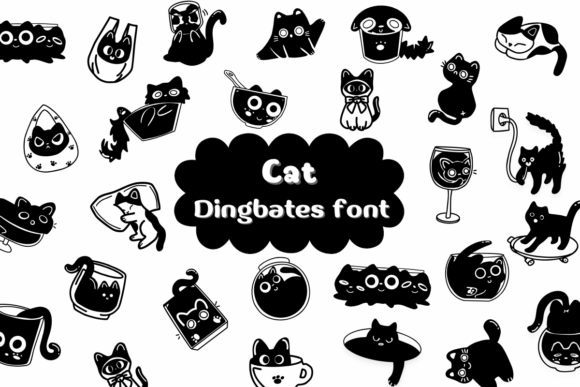
Unleash Your Creativity with Cat Font
Do you remember that moment when you were brainstorming ideas for your best friend’s birthday party and suddenly, a spark of creativity hit you? You envisioned a whimsical invitation with adorable cat illustrations, and you couldn’t wait to bring it to life. As a designer, you’ve likely had moments like this, where a great font can make all the difference in taking your project to the next level.
Cat Font is a delightful dingbats font that embodies a sketchy, hand-drawn style. Its purpose is to add a touch of playfulness and personality to your creative projects. Whether you’re designing wedding invitations, crafting decorations, or creating logos, Cat Font is the perfect companion to bring your ideas to life. For designers, it’s a valuable asset that can elevate your work and make it stand out from the crowd.
- Unique Characteristics: The font’s unique design features a whimsical, hand-drawn style with intricate details and playful flourishes, making it ideal for creative and artistic applications.
Designer Review: Cat Font
Overall, I have mixed feelings about Cat Font. While it’s certainly unique, it’s not without its flaws.
- Cat Font is quirky and fun, making it perfect for brands that want to showcase their playful side.
- The font is highly customizable, allowing designers to adjust the style to suit their needs.
- It’s a great option for those looking for a distinctive, hand-drawn feel without the hassle of creating it from scratch.
- The font can be overwhelming when used extensively. It’s best used as an accent or in small doses to avoid visual fatigue.
- The lack of ligatures and kerning can lead to awkward letter combinations, which may require additional adjustments.
- While customizable, the font’s design can feel inconsistent in certain styles, which may not be ideal for professional applications.
Overall, Cat Font is a great choice for those looking for a playful, one-of-a-kind font. However, its limitations may make it less suitable for serious, professional projects. With careful consideration and adjustments, it can be a great addition to any design arsenal.
Tips for Getting the Most Out of Cat Font
Use Cat Font for creative and whimsical designs, such as children’s books, greeting cards, and social media graphics. You can also use it to add a playful touch to your logo or branding. To get the most out of Cat Font, experiment with different font sizes, colors, and combinations with other fonts.
Some common use cases for Cat Font include:
- Greeting cards and invitations
- Social media graphics and ads
- Logo and branding design
- Party and event invitations
Playfair Display is an elegant, high-end serif font perfect for luxury brands, magazines, and high-end advertising. Its unique combination of classical and modern elements makes it suitable for projects that require sophistication and refinement.
Compared to Cat Font, Playfair Display has a more refined and luxurious feel, making it a better choice for high-end projects. While Cat Font is playful and casual, Playfair Display is sophisticated and elegant.
Great Vibes is a modern, cursive script font ideal for creative projects, social media, and advertising. Its fluid, organic lines make it perfect for conveying a sense of movement and energy.
Compared to Cat Font, Great Vibes has a more dynamic and expressive feel, making it a better choice for projects that require creativity and flair. While Cat Font is playful and quirky, Great Vibes is more energetic and lively.